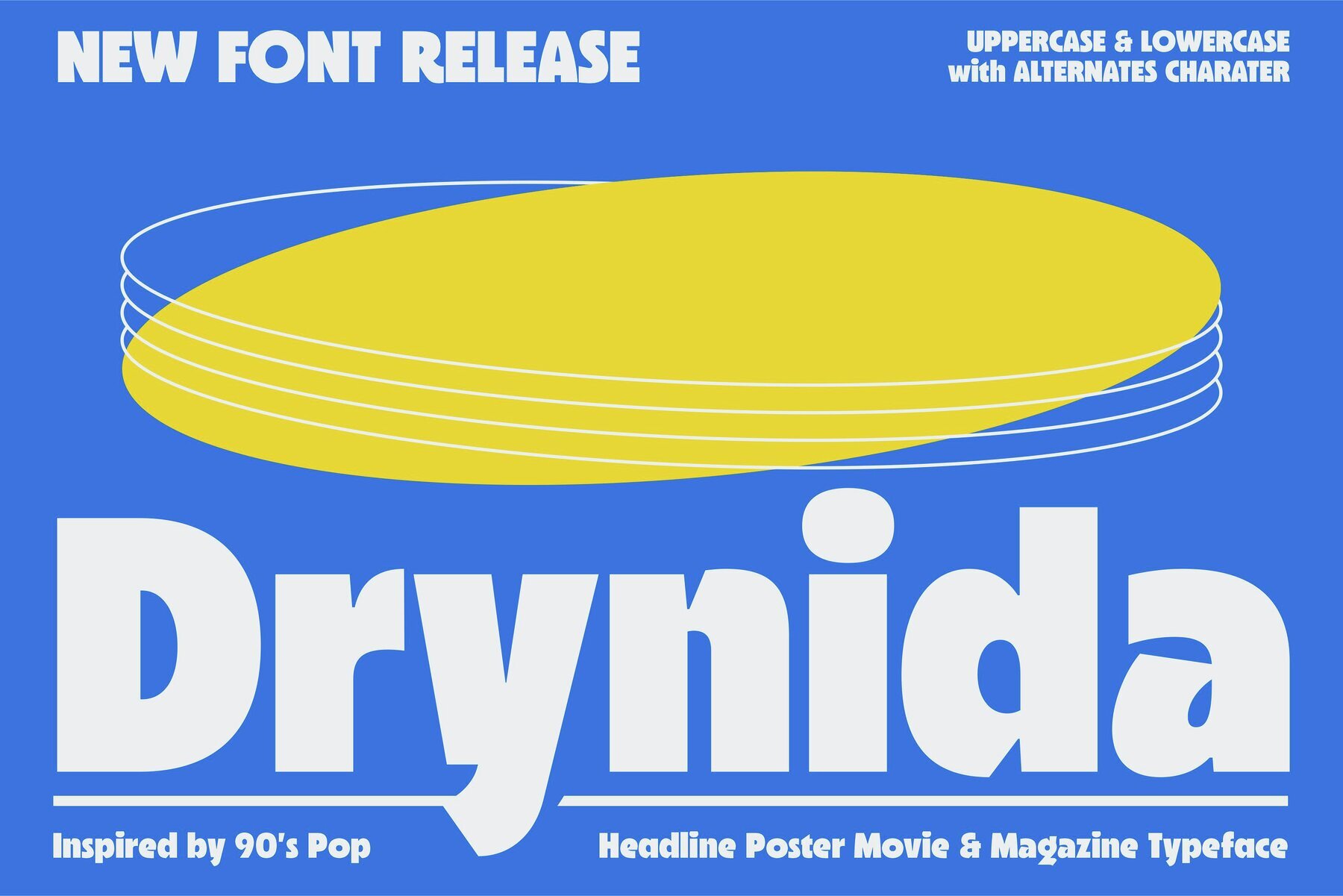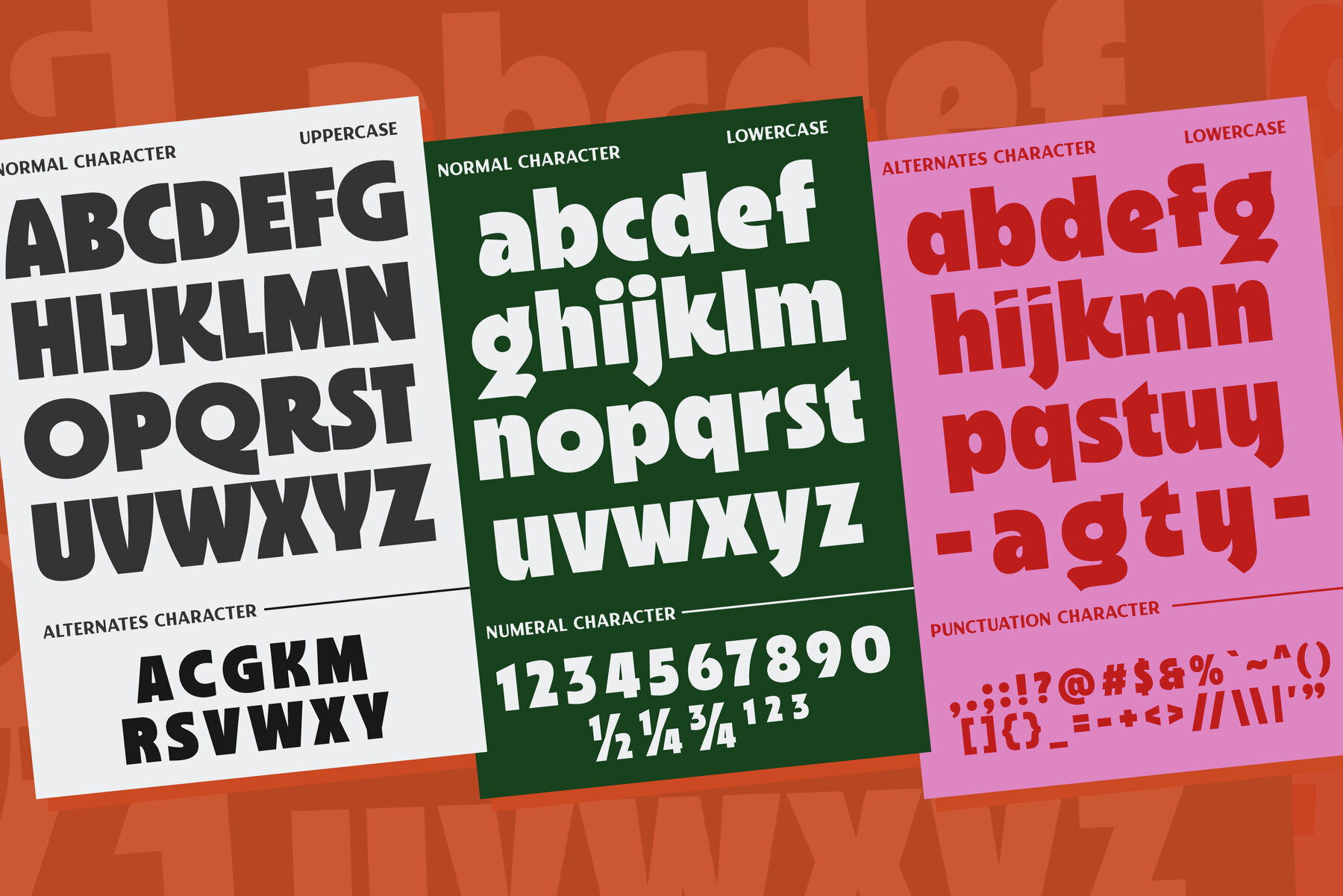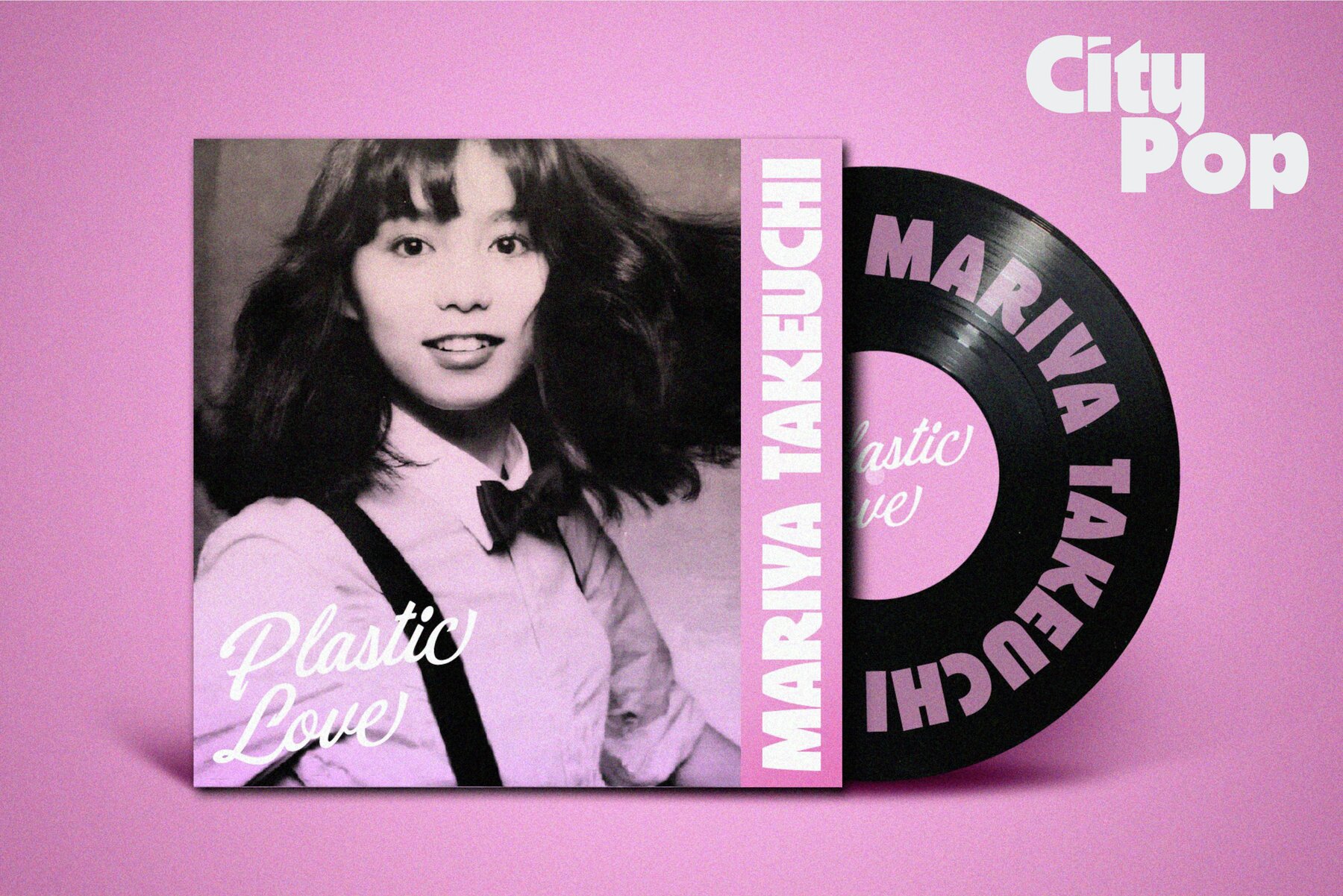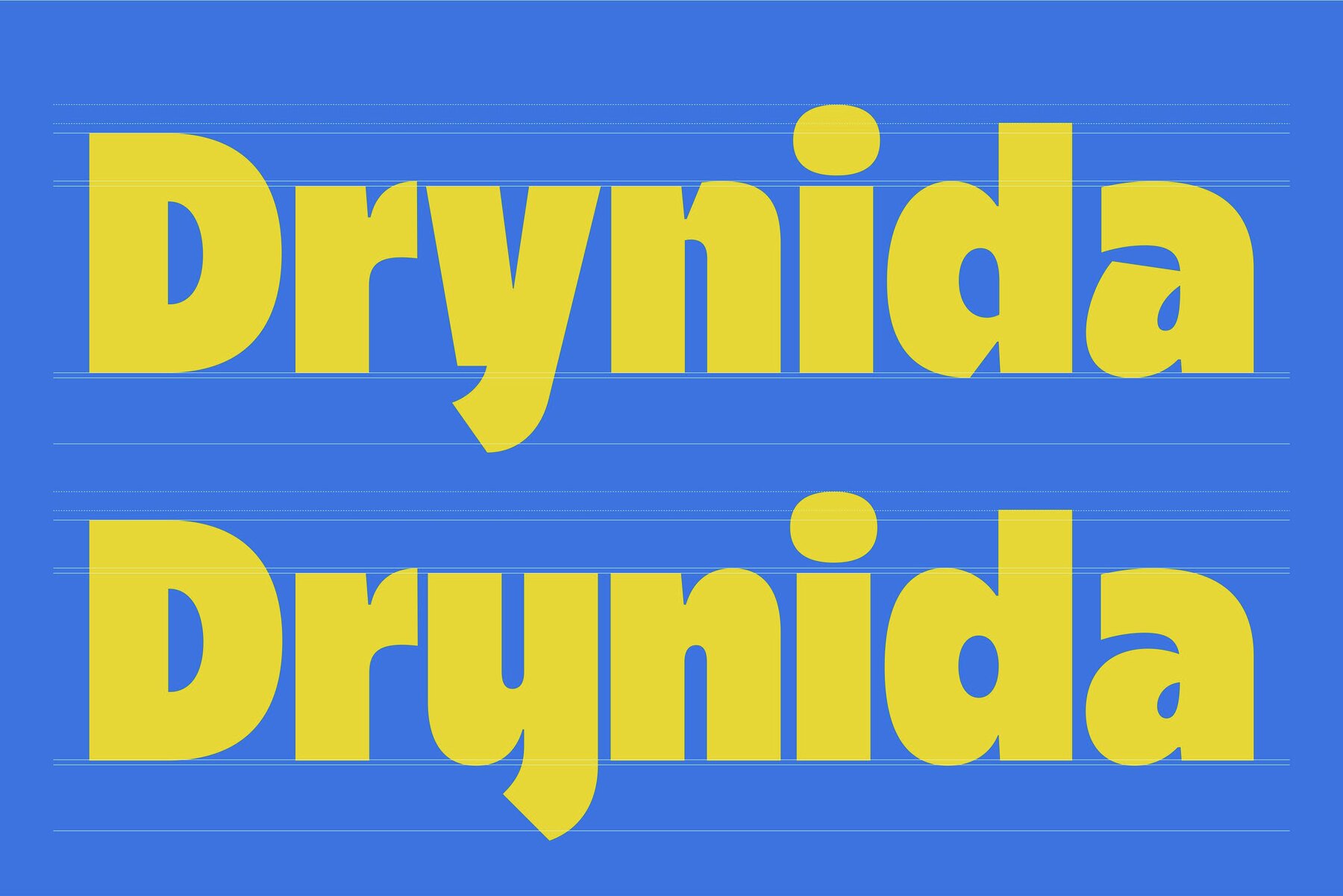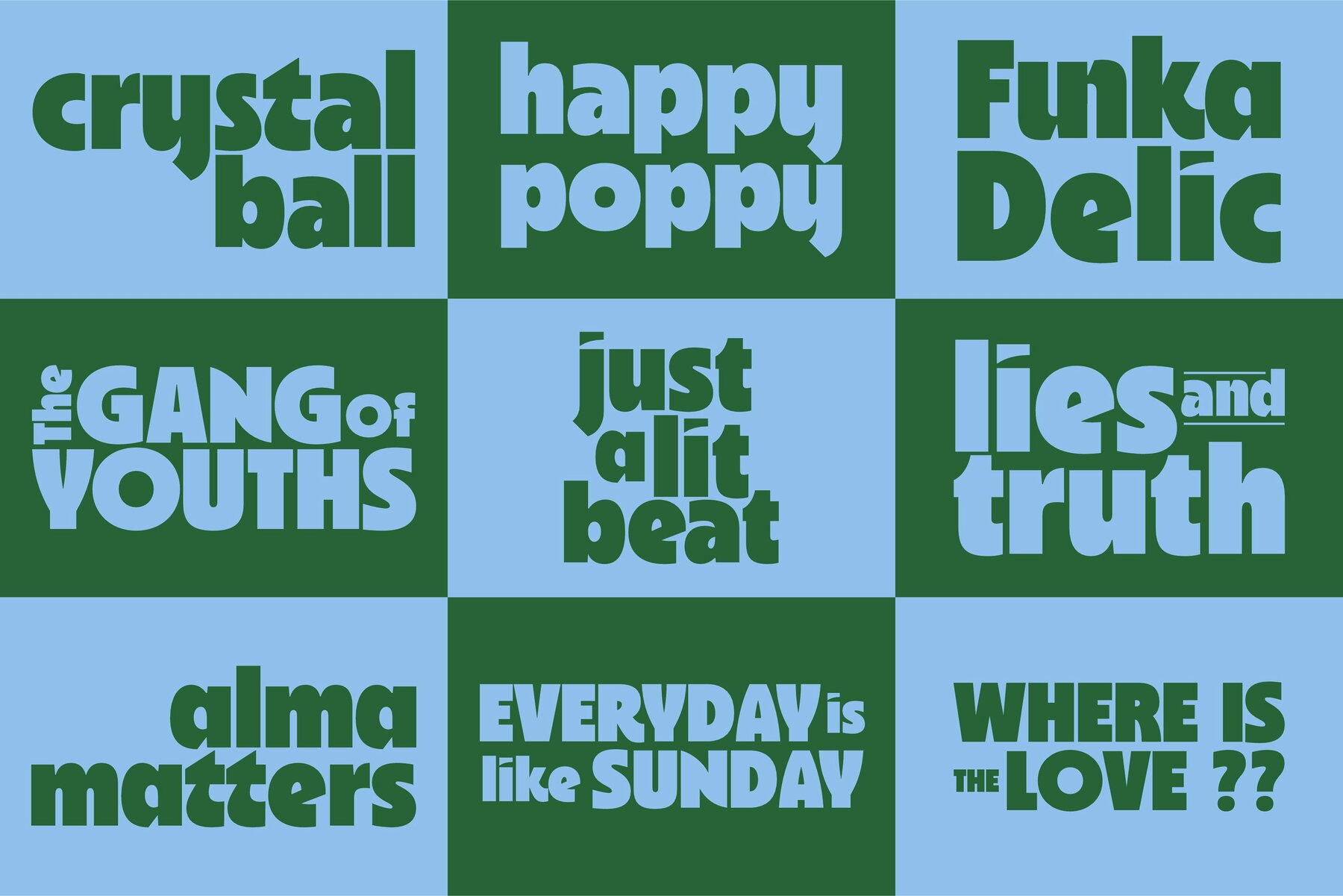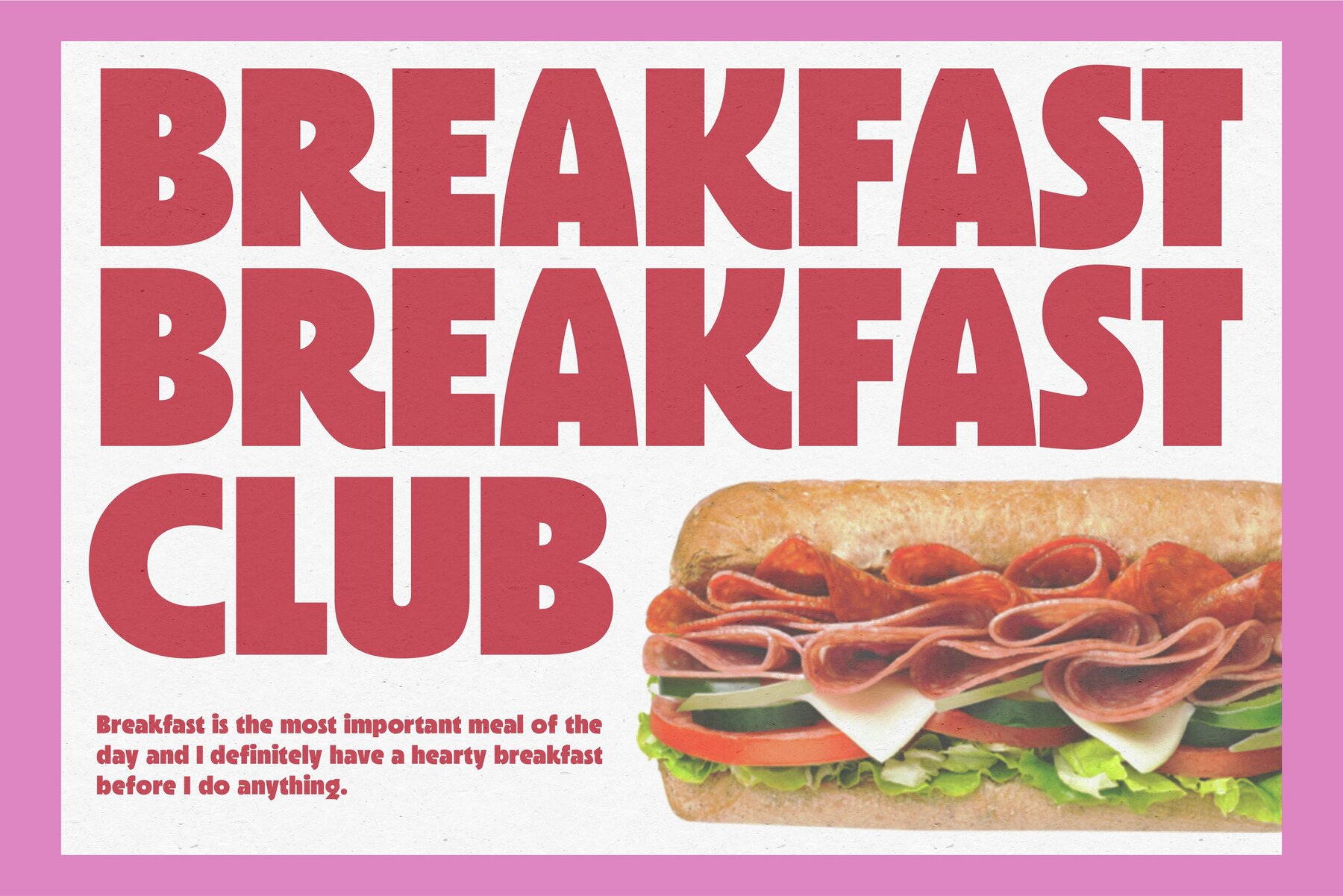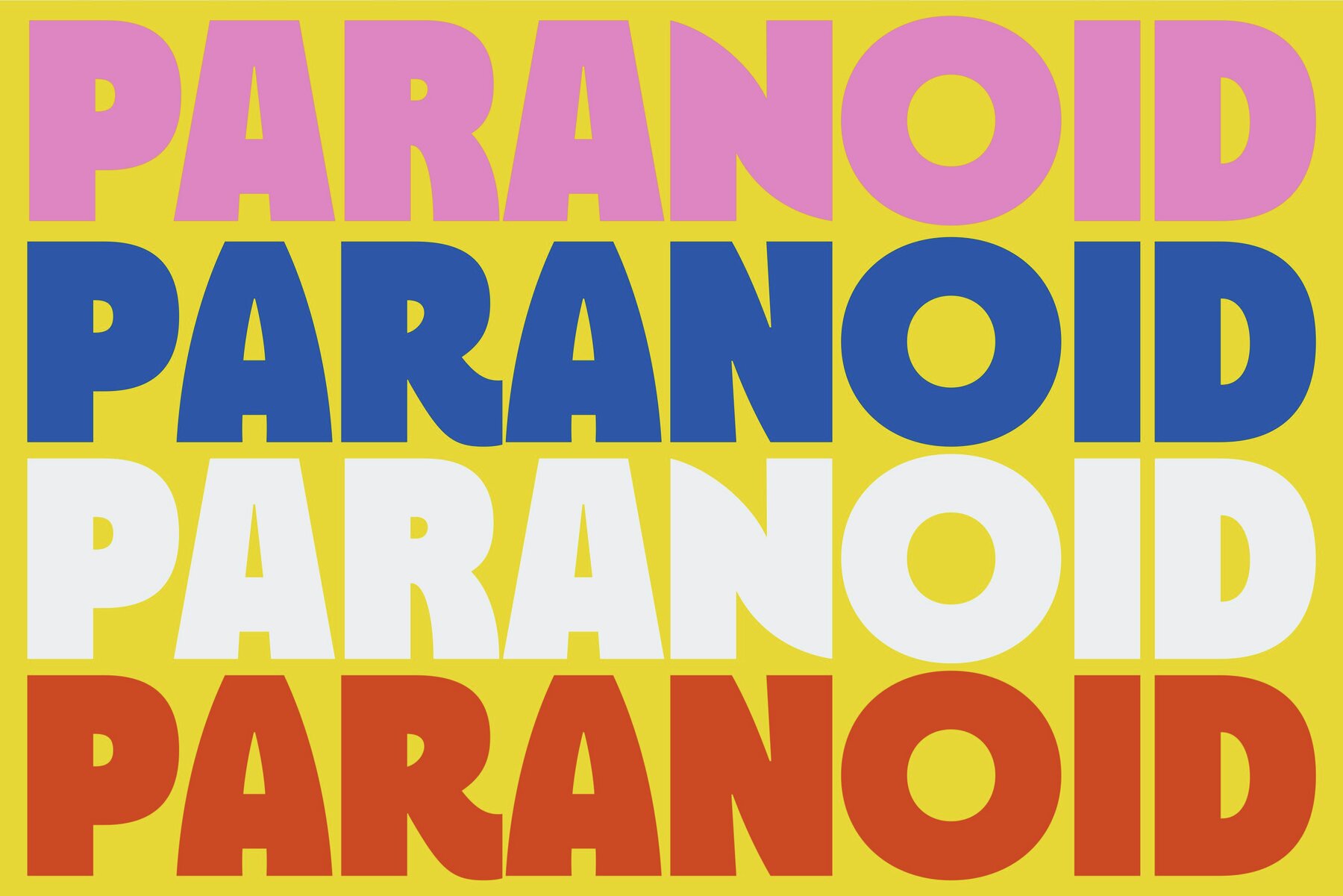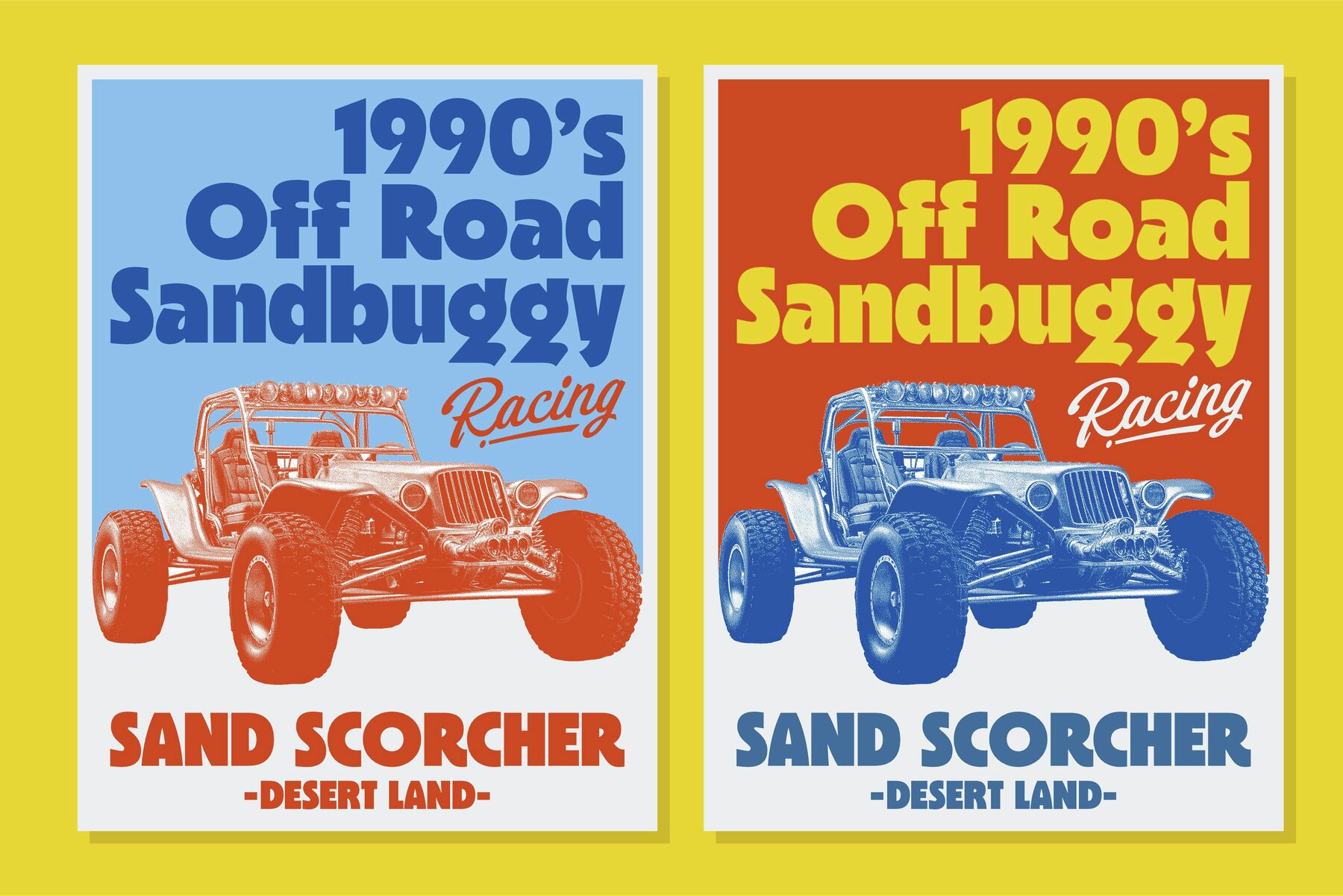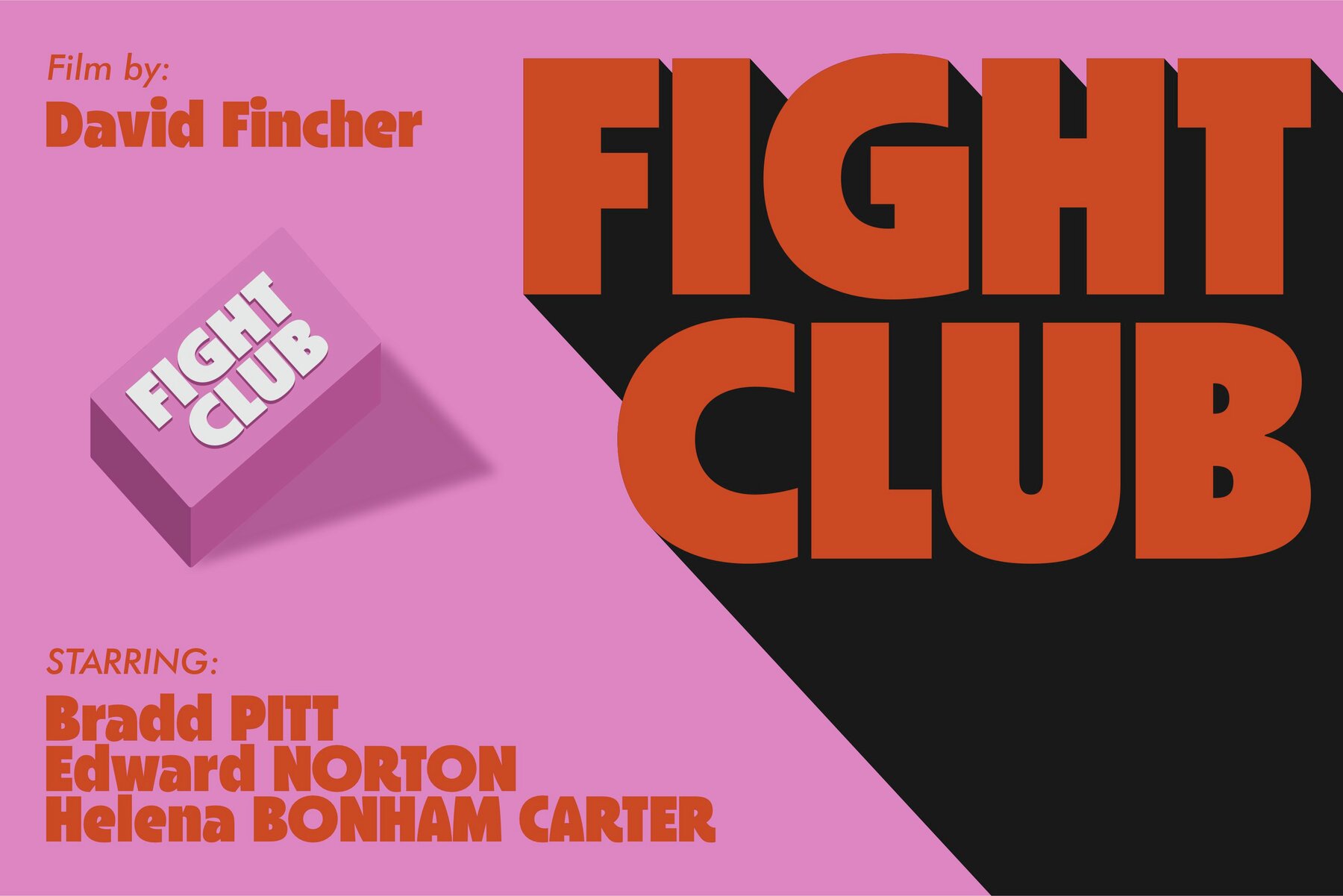
Drynida Font
RTCO Drynida
Drynida is a modern vintage sans serif font with a distinctive black typeform, inspired by 90's pop headlines, poster movies, and magazine typefaces. It's an ideal choice for graphic designers aiming to create striking posters, logotypes, merchandise, printed stickers, and other branding applications.
This font includes uppercase and lowercase letters, numerals, punctuation, ligatures, and multilingual support, ensuring versatility and ease of use across various design projects. Its combination of boldness and vintage charm makes Drynida a standout option for any creative endeavor looking to capture a nostalgic yet contemporary feel.